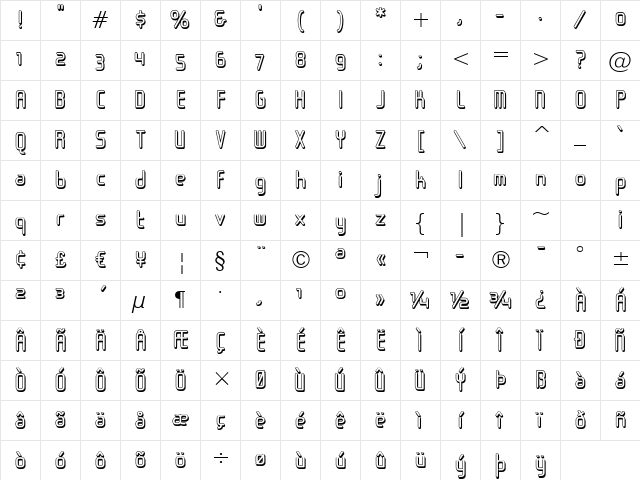
Sugarskin BTN Shadow Regular
Complete Sugarskin BTN Shadow Regular glyph index. Displaying only characters natively supported by Sugarskin BTN Shadow Regular font.
Design Context for Sugarskin BTN Shadow
Sugarskin BTN Shadow is built around its visual character rather than neutral utility - its distinctive forms are designed to make an impression at display sizes.
Font Pairing: Pair with a clean neutral sans-serif for body copy to let Sugarskin BTN Shadow's character lead without overwhelming the composition.
Pro Tip: Use Sugarskin BTN Shadow exclusively at display sizes - it was designed to be seen, not read at length. Let a neutral companion handle body copy.